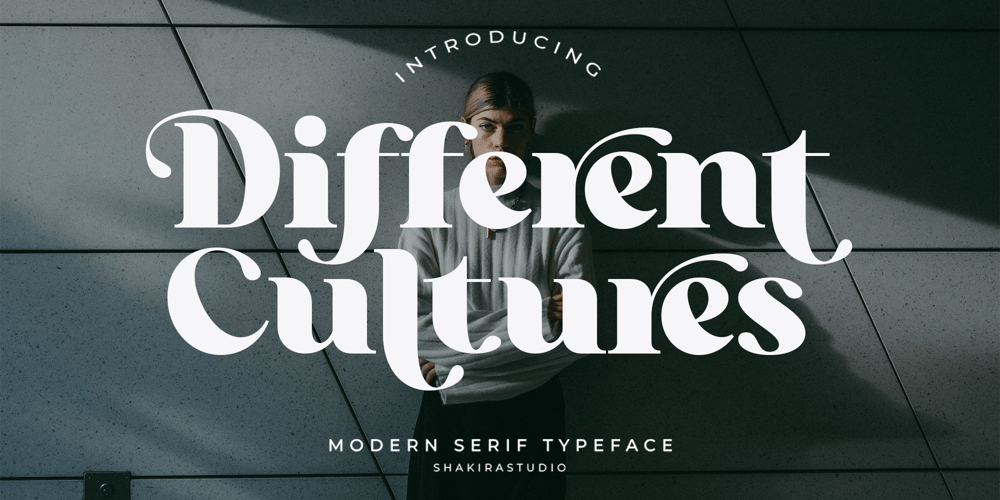
Different Cultures Font Family was designed by Idhham Cholid Rikzano Yahya and published by Shakira Studio. Different Cultures contains 2 styles and family package options. Introducing “Different Cultures,” a font that effortlessly embodies the latest design trends. This modern serif display font transcends conventional styles, offering a perfect fusion of bold and thin strokes that create a visually stunning balance. Immerse your designs in the contemporary allure of “Different Cultures,” where every curve and detail is meticulously crafted for maximum impact.Explore the font’s diverse array of alternates and ligatures, providing you with a stylish toolkit to customize and enhance your typographic creations. “Different Cultures” is more than just a font; it’s a visual journey that seamlessly blends modernity with timeless elegance.Elevate your projects with the unique and captivating aesthetics of “Different Cultures,” setting a new standard for stylish and versatile modern serif display fonts in today’s design landscape.Here’s what you get: Regular & Italic All Multilingual symbol Opentype features ( ligature, alternate ) Accessible in the Adobe Illustrator, Adobe Photoshop, Adobe InDesign, even work on Microsoft Word. PUA Encoded Characters – Fully accessible without additional design software. Multilingual character supports : (Afrikaans, Albanian, Catalan, Croatian, Czech, Danish, Dutch, English, Estonian, Finnish, French, German, Hungarian, Icelandic, Italian, Lithuanian, Maltese, Norwegian, Polish, Portuguese, Slovenian, Spanish, Swedish, Turkish, Zulu)Follow my shop for upcoming updates, and for more of my work,Thank you!